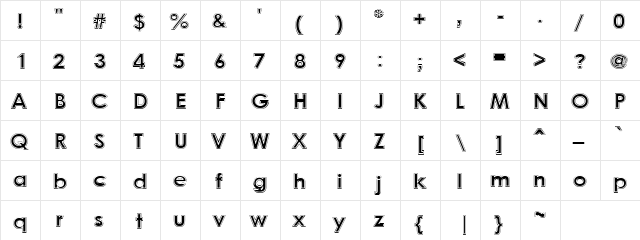
Outline Presto Regular
Design Context for Outline Presto Typeface
Outline Presto brings ornamental detail and strong personality to headlines and identities, where visual impact matters more than quiet functionality.
Font Pairing: Pair with a clean neutral sans-serif for body copy to let Outline Presto's character lead without overwhelming the composition.
Pro Tip: Treat Outline Presto as the centrepiece of your typographic hierarchy. One strong heading set in a decorative face can carry an entire layout.